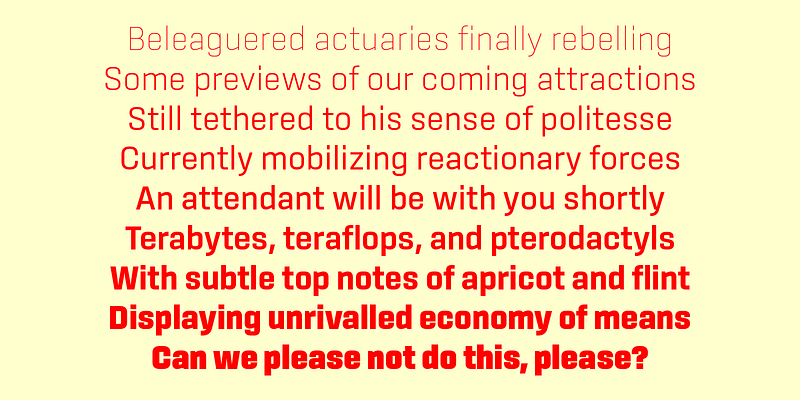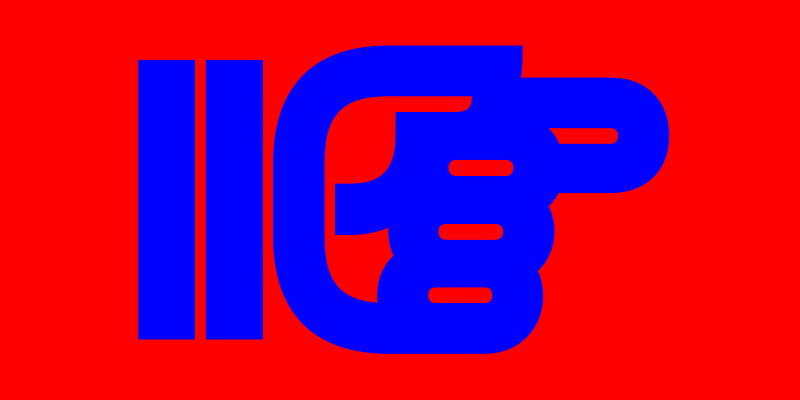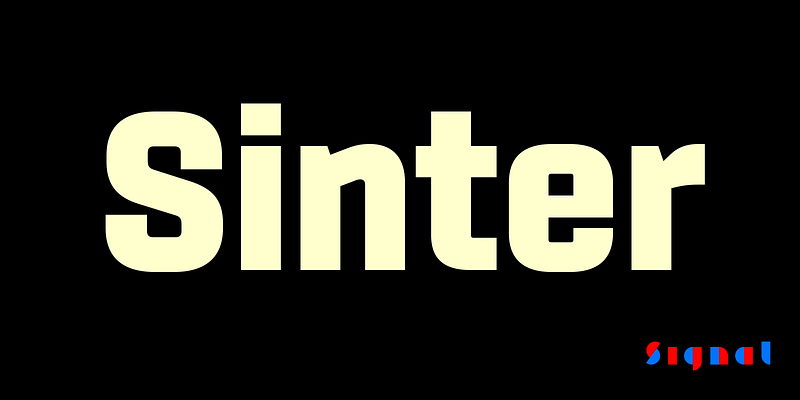
The future is squarish. Based on a rounded rectangle, Sinter’s geometry has been subtly refined for smoother reading. Its branches are angled in homage to OCR-A. A combination of open counters, unequivocal curves, and ruler-straight vertical and horizontal strokes suit it admirably for onscreen display.